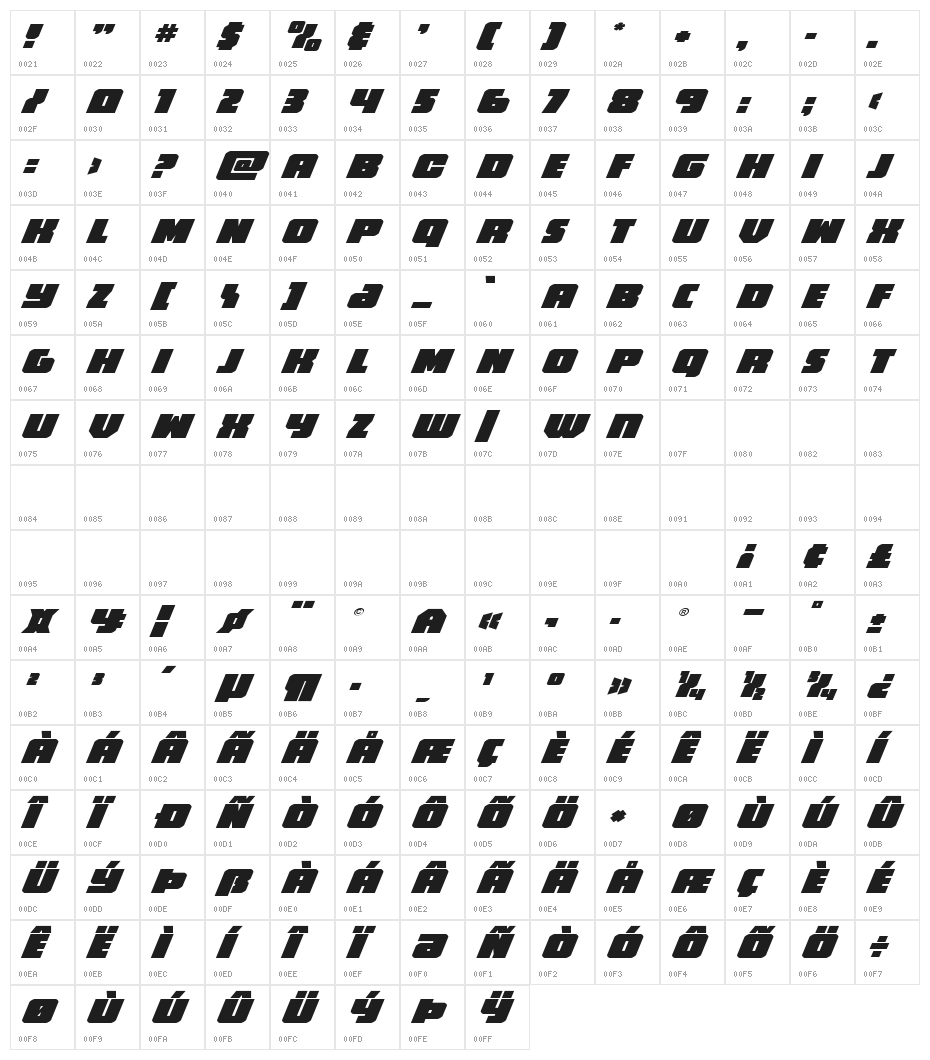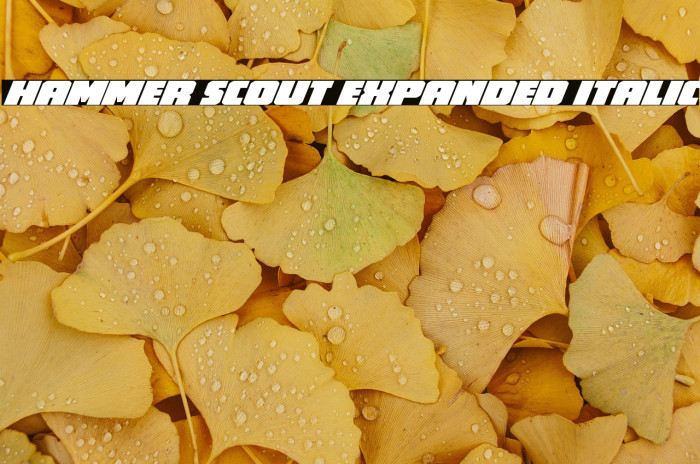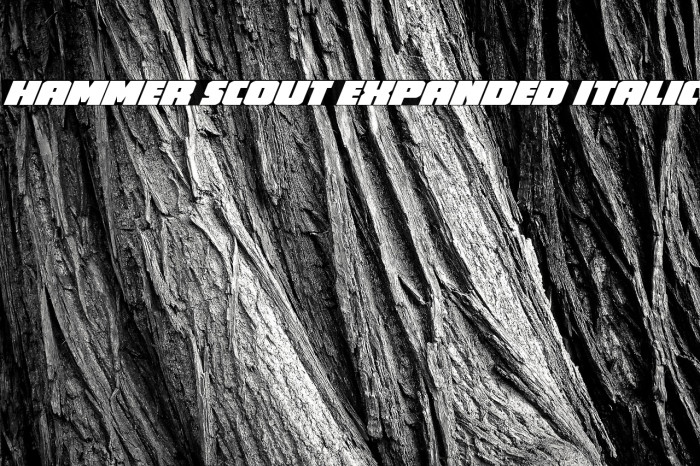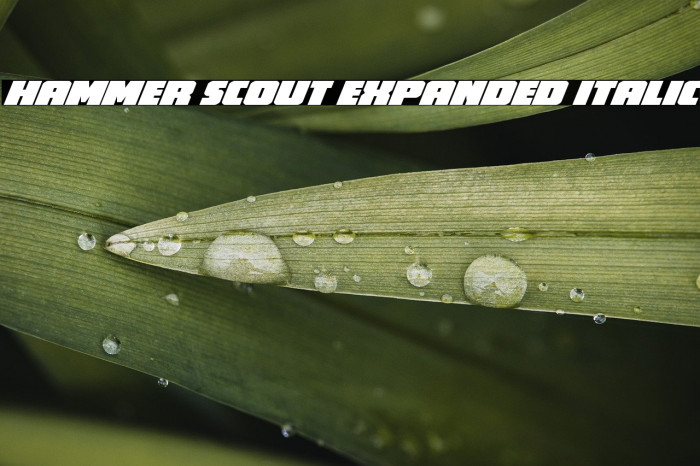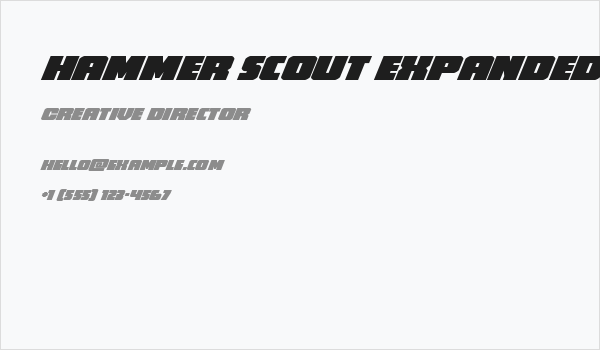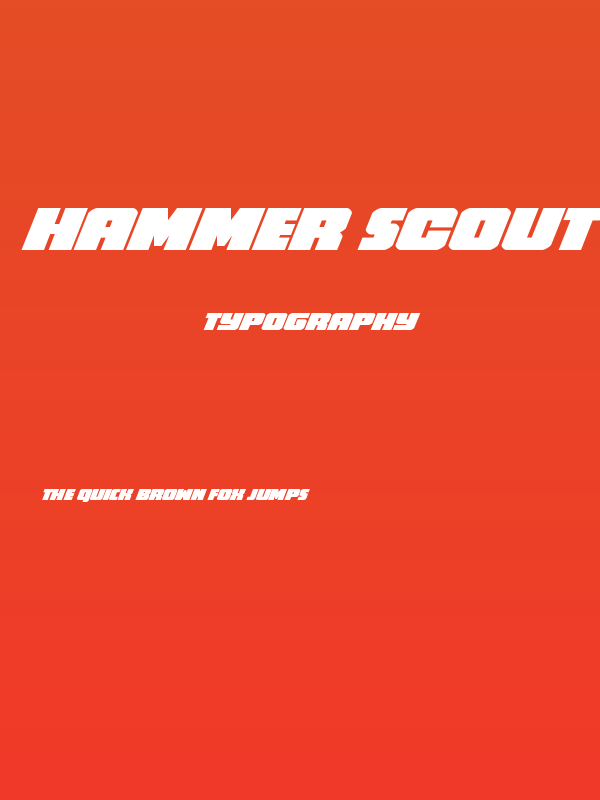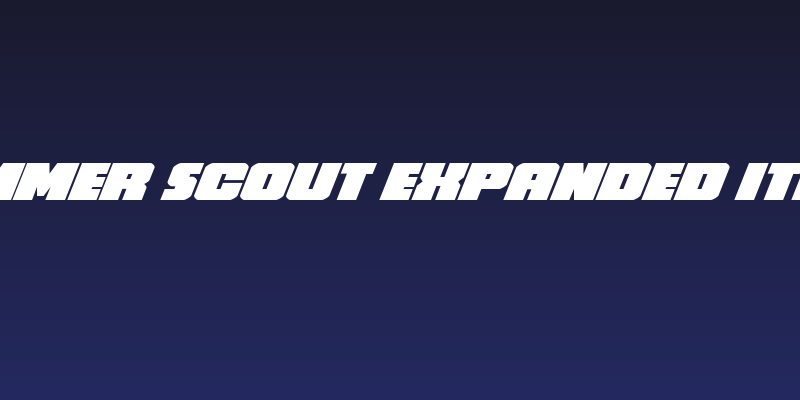
Hammer Scout Expanded Italic Font
Hammer Scout Expanded Italic Description
This font features a bold, italicized style with an expanded width, giving it a strong and dynamic appearance. The characters are heavily weighted, providing a sense of power and impact. The italic slant adds a sense of motion, making it suitable for designs that require a sense of speed or urgency. The expanded width ensures that each letter stands out, making it ideal for attention-grabbing headlines or titles. The font maintains a consistent stroke thickness, contributing to its bold and assertive look. The character spacing is relatively tight, enhancing the compact and cohesive feel of the text.
| Proposed Projects | Ideal for sports branding, action movie posters, automotive advertisements, and dynamic event flyers. |